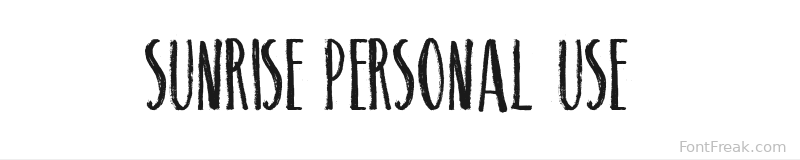
SUNRISE PERSONAL USE
SUNRISE PERSONAL USE font by Billy Argel Fonts is a distinctive display typeface that captures the essence of a warm, inviting atmosphere. This font features elongated, slightly irregular letterforms that evoke a sense of handcrafted artistry. Its stroke weight varies, providing a dynamic contrast that enhances readability while adding a playful touch. The spacing between characters is thoughtfully designed, allowing for clarity and flow, making it suitable for various applications.
This versatile font excels in settings that require a casual yet stylish appeal. It is particularly well-suited for wedding invitations, where its charming character can convey romance and warmth. Additionally, SUNRISE PERSONAL USE is ideal for creative projects like movie posters, as it can draw attention and set the tone for artistic themes. Restaurant menus can also benefit from this font, as it adds a friendly and approachable vibe that can entice patrons. Content creators looking to enhance their digital graphics will find this font particularly appealing, as it can elevate social media posts and promotional materials with its unique flair.
In summary, SUNRISE PERSONAL USE by Billy Argel Fonts stands out due to its unique blend of handcrafted aesthetics and versatility. Its friendly design and charming characteristics make it an excellent choice for various creative applications, ensuring that any project it graces will feel inviting and distinctive. Don’t miss the opportunity to incorporate this delightful font into your work; find the SUNRISE PERSONAL USE font free download today.